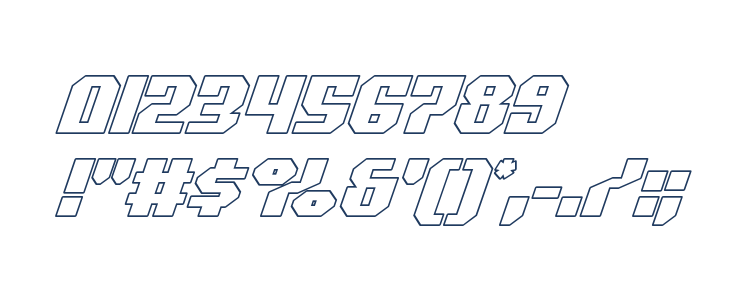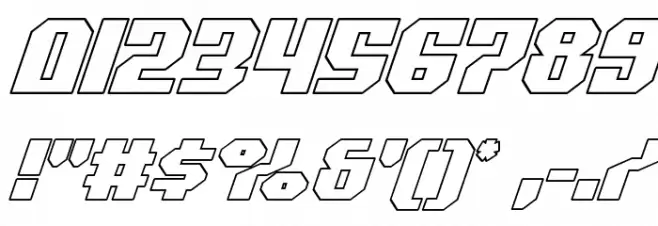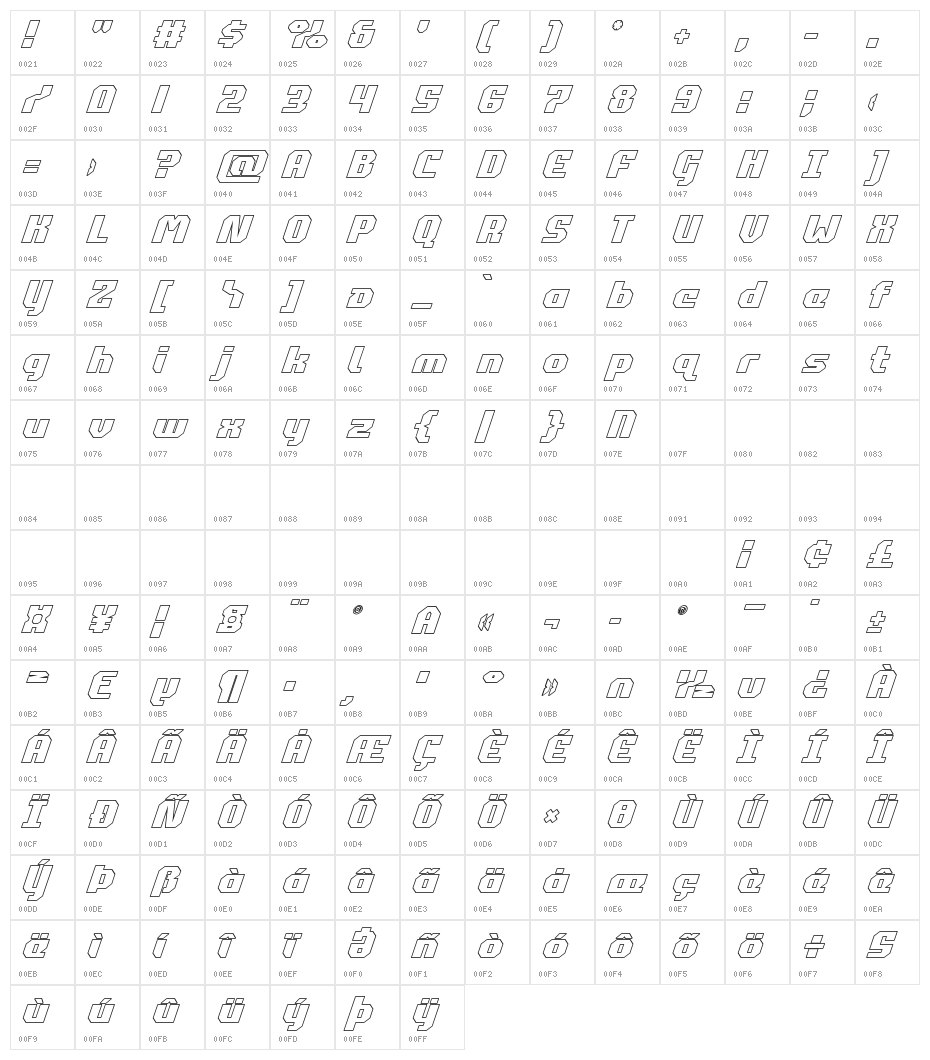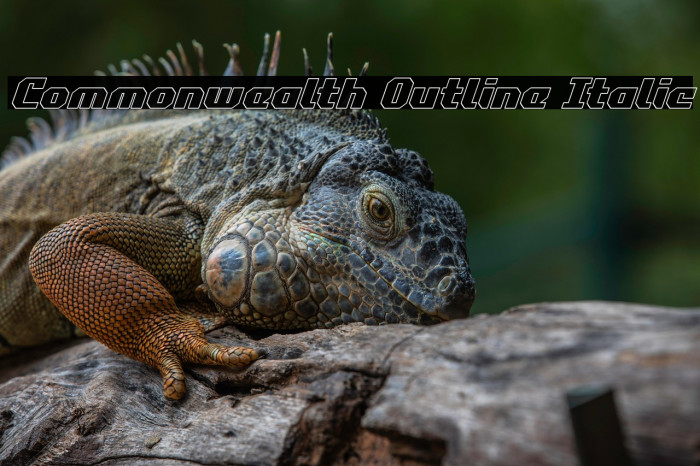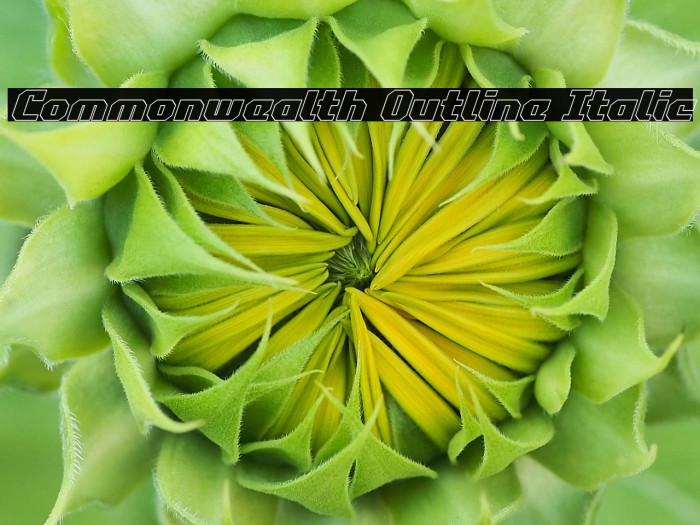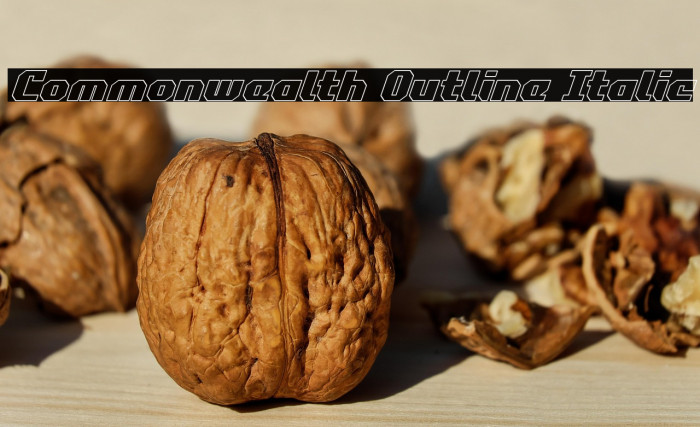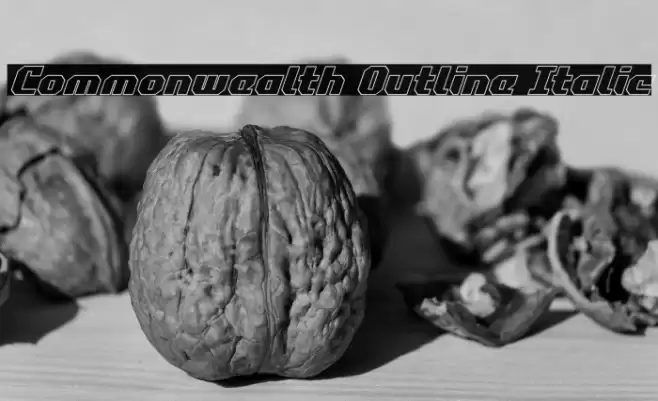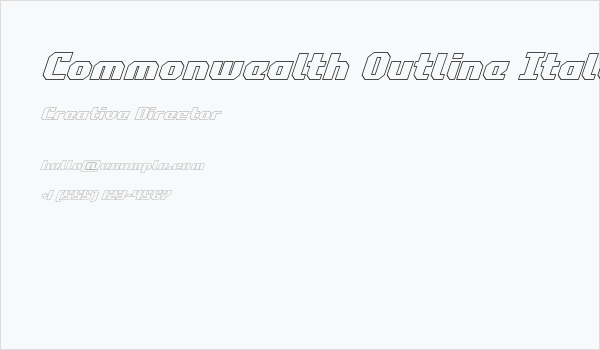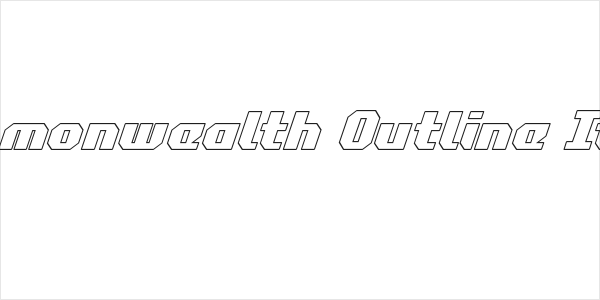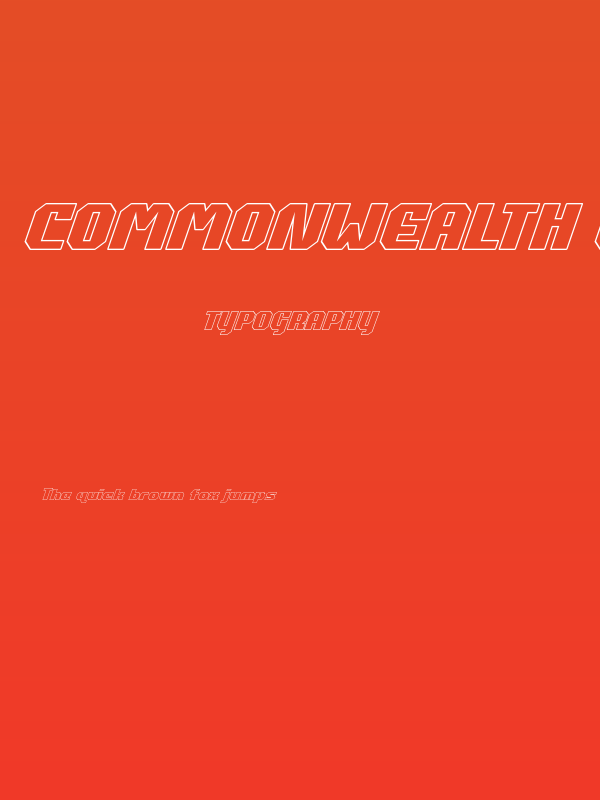
Commonwealth Outline Italic Font
Commonwealth Outline Italic Description
This font features a bold, geometric outline style with a distinct italic slant, giving it a dynamic and modern appearance. The characters are constructed with sharp angles and clean lines, creating a futuristic and technical feel. The uppercase and lowercase letters maintain a consistent design, enhancing readability while adding a unique flair. The numbers and special characters follow the same outlined and italicized design, ensuring uniformity across all glyphs. This font's outlined nature makes it ideal for creating striking visual effects, especially when layered over contrasting backgrounds.